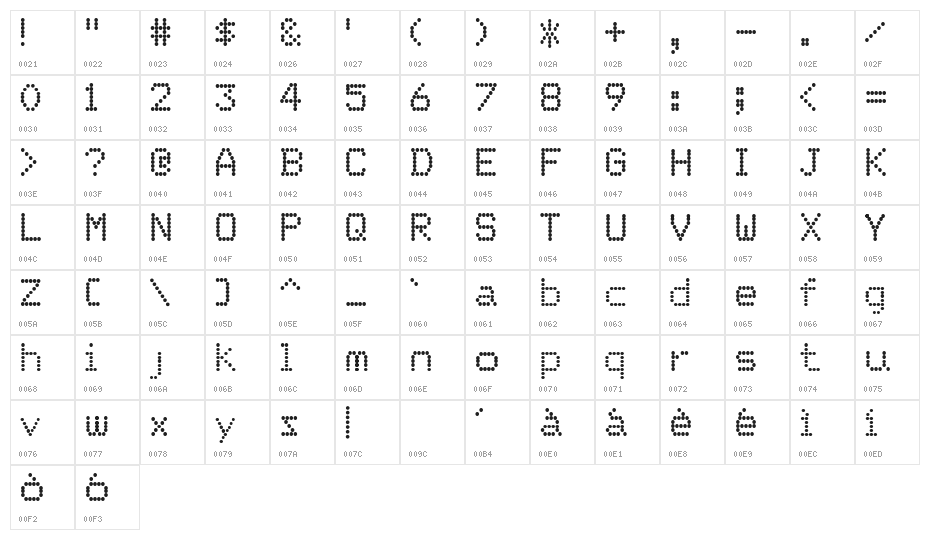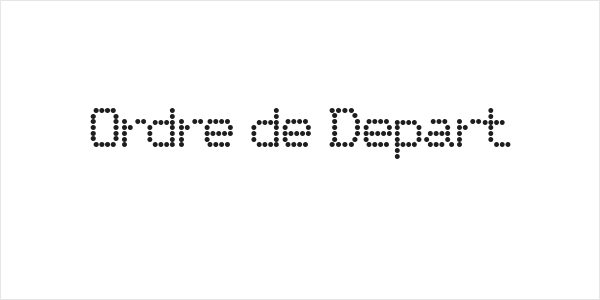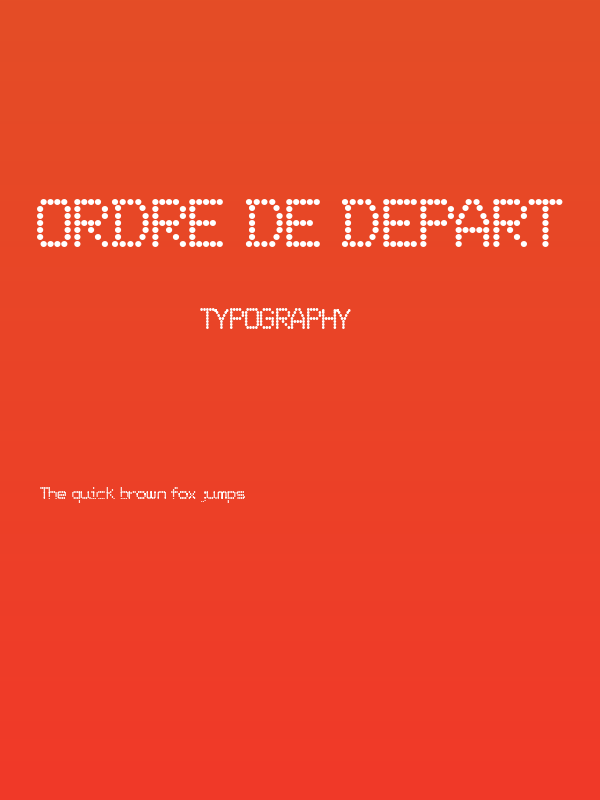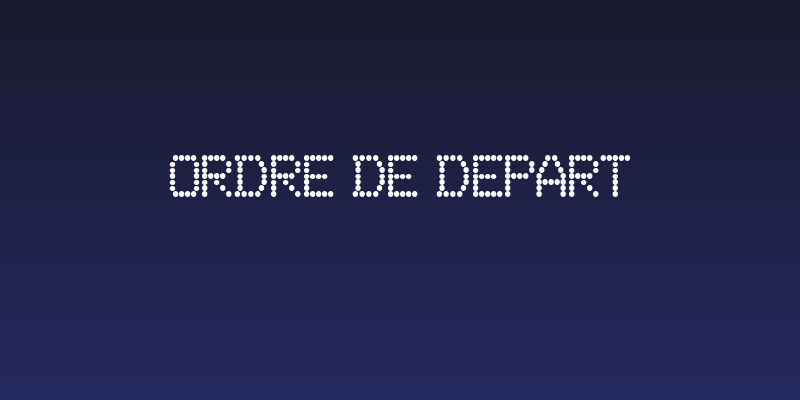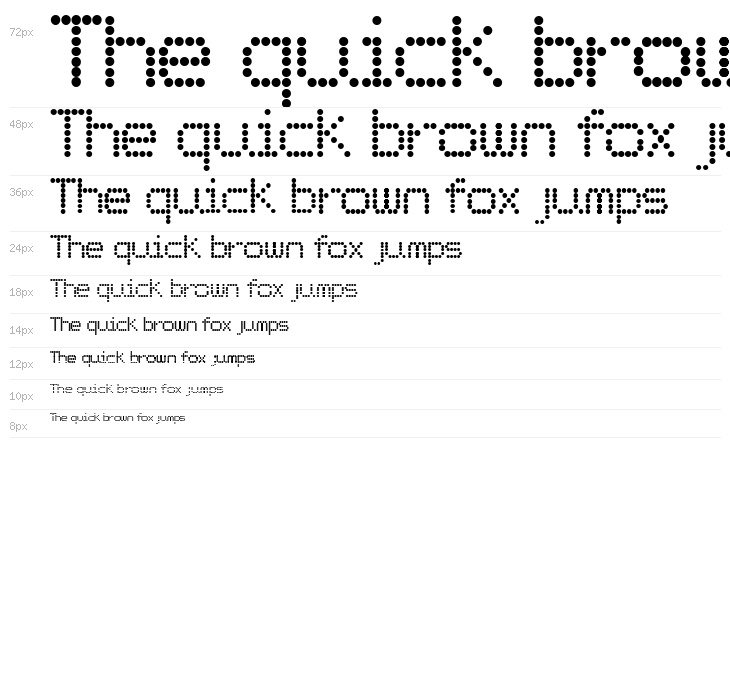
Ordre de Depart Font
Ordre de Depart Description
This font features a unique dotted design, where each character is composed of a series of evenly spaced dots forming the shape of letters and numbers. The style is reminiscent of digital displays or LED screens, offering a modern and technological feel. The uppercase and lowercase letters maintain a consistent pattern, providing a cohesive look across the alphabet. Numbers and special characters follow the same dotted pattern, ensuring uniformity. This font is particularly eye-catching and would stand out in any design that requires a futuristic or digital aesthetic.
| Proposed Projects | Ideal for digital-themed projects, tech branding, futuristic posters, and electronic music album covers. |